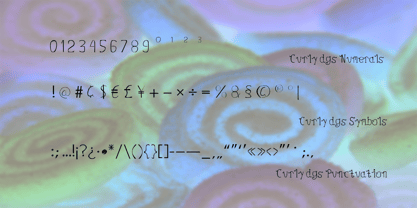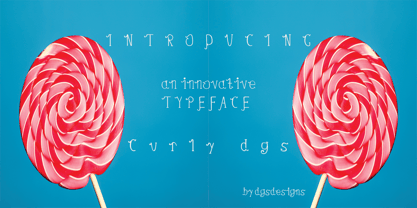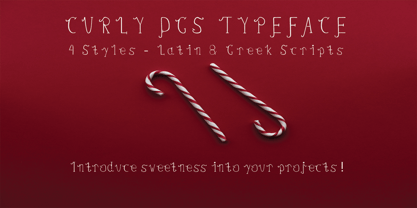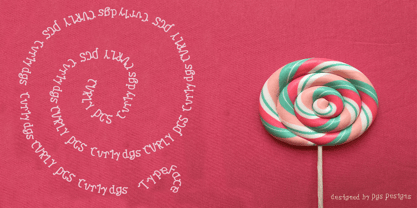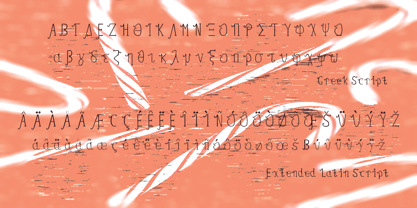
Curly dgs
by dgsdesigns
Curly dgs Typeface is a creative, stylish font with a modern twist. It's a unique creative typeface that will leave a signature design on all your projects. Such Projects to use the typeface Curly dgs could be such as Christmas or other holiday activities, invitations, brands, brochures and much more creative projects.
A new typeface with a twist and creative by the foundry typeface designer Dgsdesigns
Designers: Debbie Sinis
Foundry: dgsdesigns